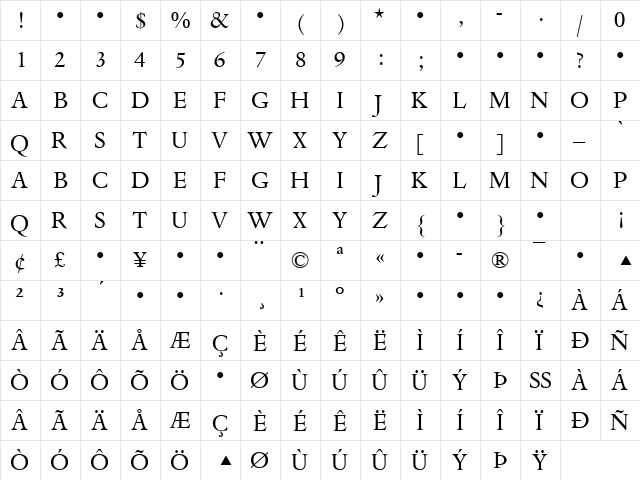
Dante Titling MT Regular
Design Context for Dante Titling MT Typeface
Dante Titling MT is a composed and adaptable typeface that performs quietly and consistently across a wide range of design contexts.
Pro Tip: Use Dante Titling MT in both headline and body roles to test its range before committing to a single application.